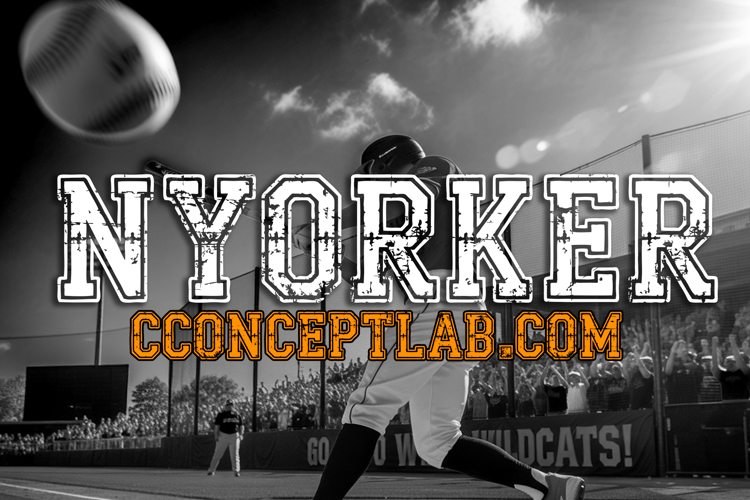
Nyorker Font
NYORKER
- Serif inspired font perfect on your school, college, university, varsity covers, etc.
- Blackletter distressed theme font for sports branding, website, mobile app etc.